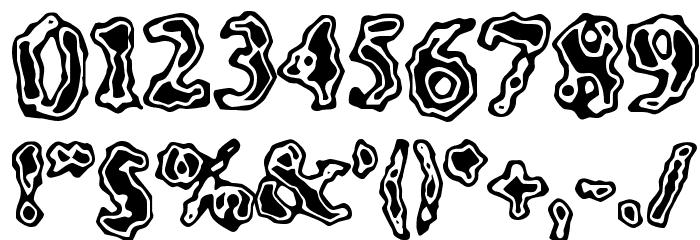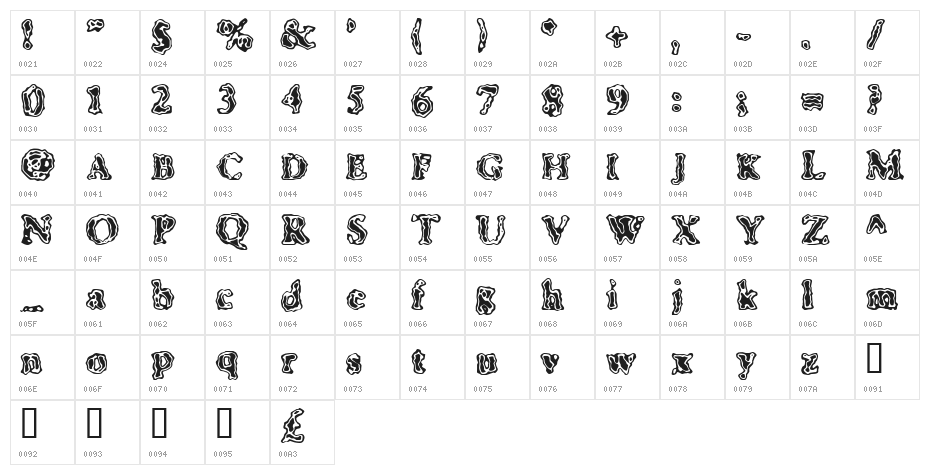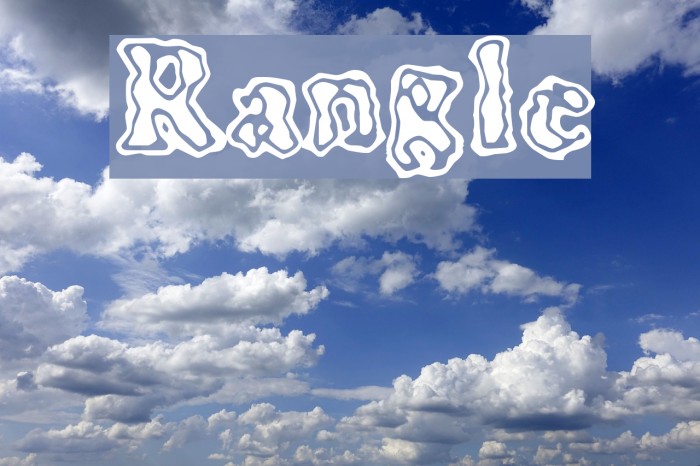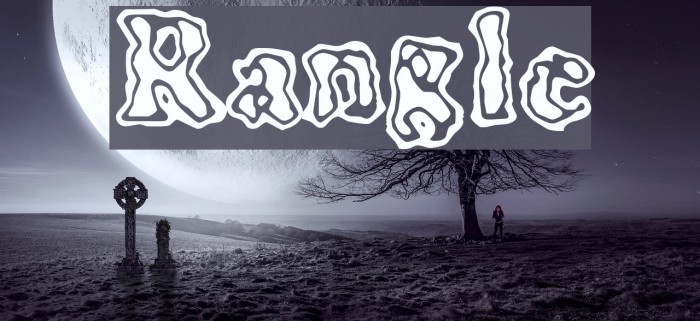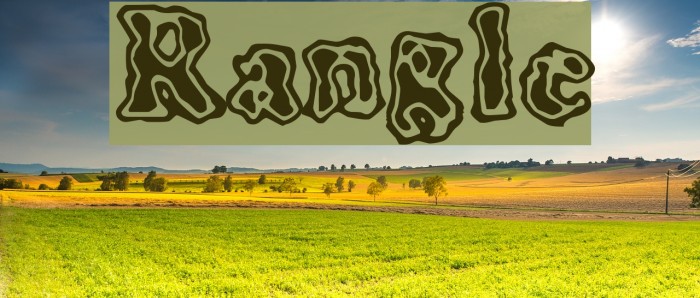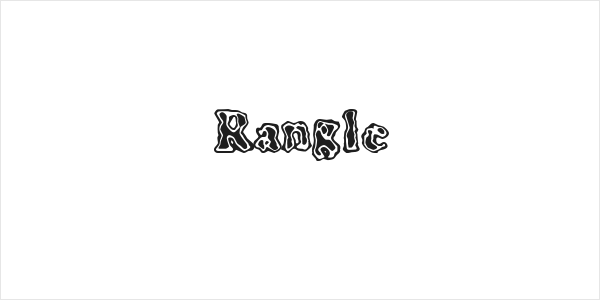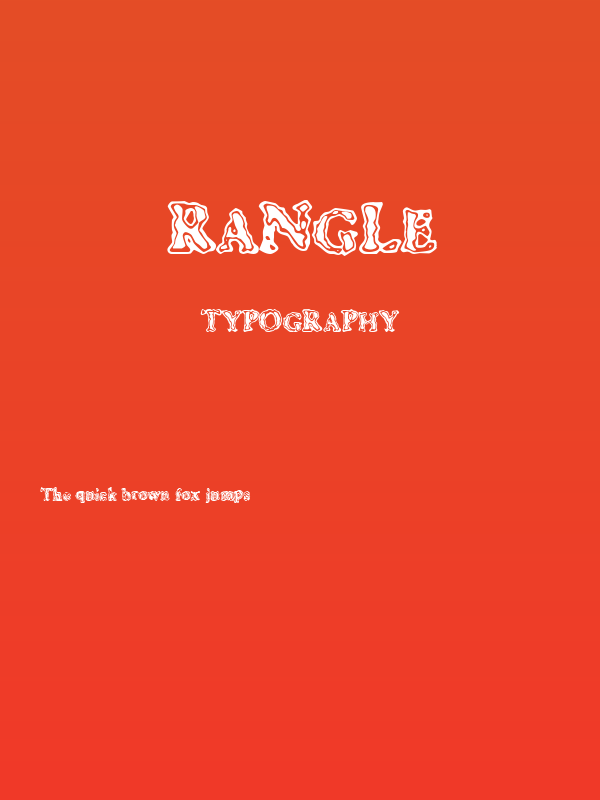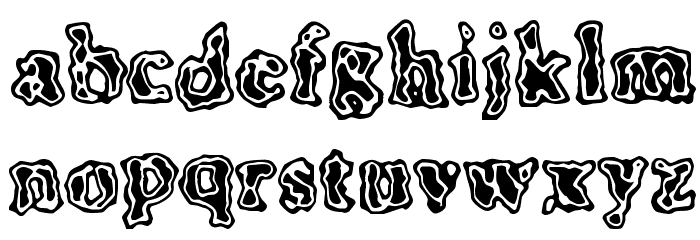
Rangle Font
Rangle Description
This font features a highly decorative and unique style with wavy, irregular outlines that give it a playful and artistic appearance. The characters are bold and have a hand-drawn feel, with each letter exhibiting a distinct, organic form. The uppercase and lowercase letters maintain a consistent design, while the numbers and special characters follow the same whimsical theme. The font's boldness and intricate design make it stand out, ideal for creative projects that require a touch of individuality and flair.
| Proposed Projects | Ideal for posters, album covers, artistic branding, and creative invitations. |